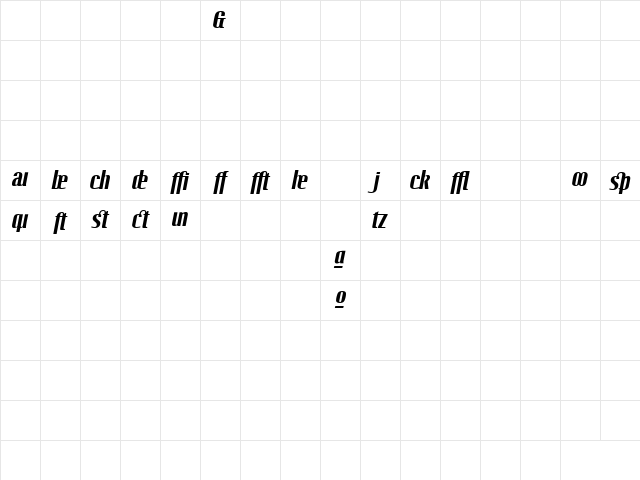
LTOctane Addition BoldItalic
Design Context for LTOctane Addition
LTOctane Addition is a composed and adaptable typeface that performs quietly and consistently across a wide range of design contexts. The slanted form adds forward momentum and visual energy. Its bold stroke weight gives it real presence on the page.
Pro Tip: Use LTOctane Addition for emphasis, pull quotes, and subheadings where its slanted energy can add rhythm to the layout.